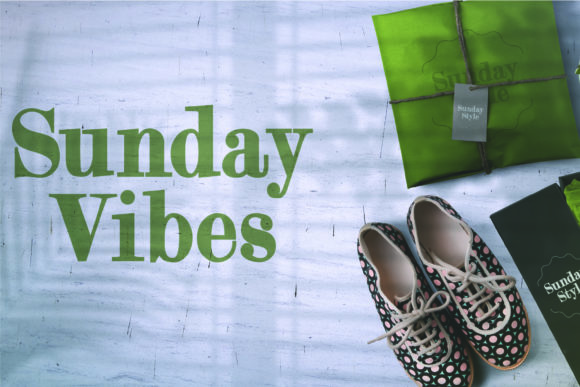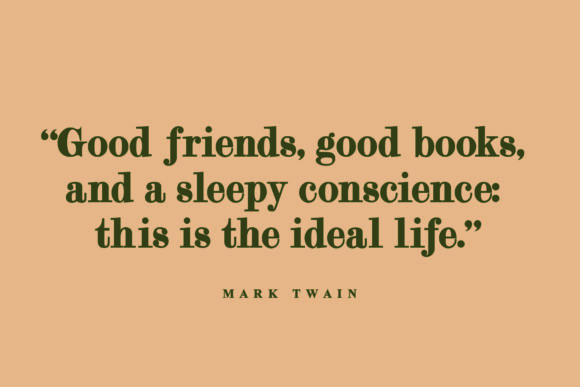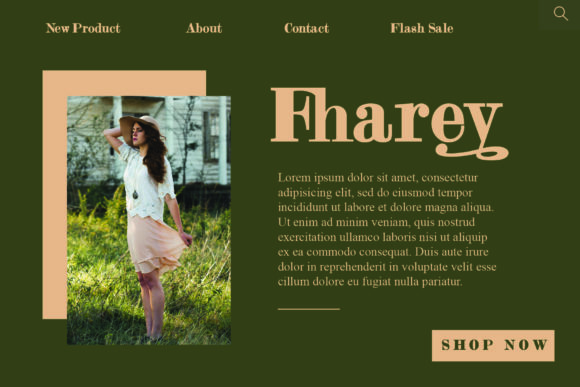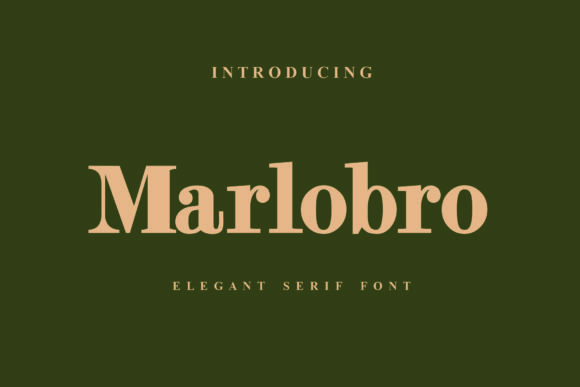
Introduction to Marlobro Font
Marlobro is a modern serif font with old style elements.
Can be used in various promotional purposes It is suitable for any branding, product packaging, invitation, quote, t-shirt, label, poster, logo that you wish to develop.
Marlobro Font offers exceptional quality and versatility, making it a valuable addition to your design toolkit. Whether you’re creating for personal projects or commercial use, Marlobro Font delivers professional results.